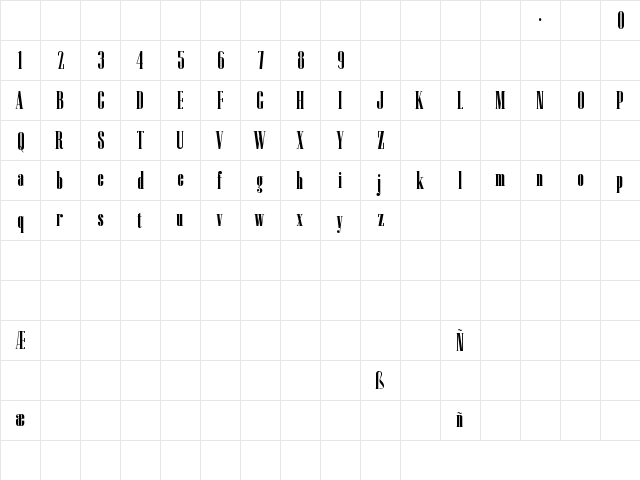
Czesko Regular
Design Context for Czesko Typeface
Czesko is a composed and adaptable typeface that performs quietly and consistently across a wide range of design contexts.